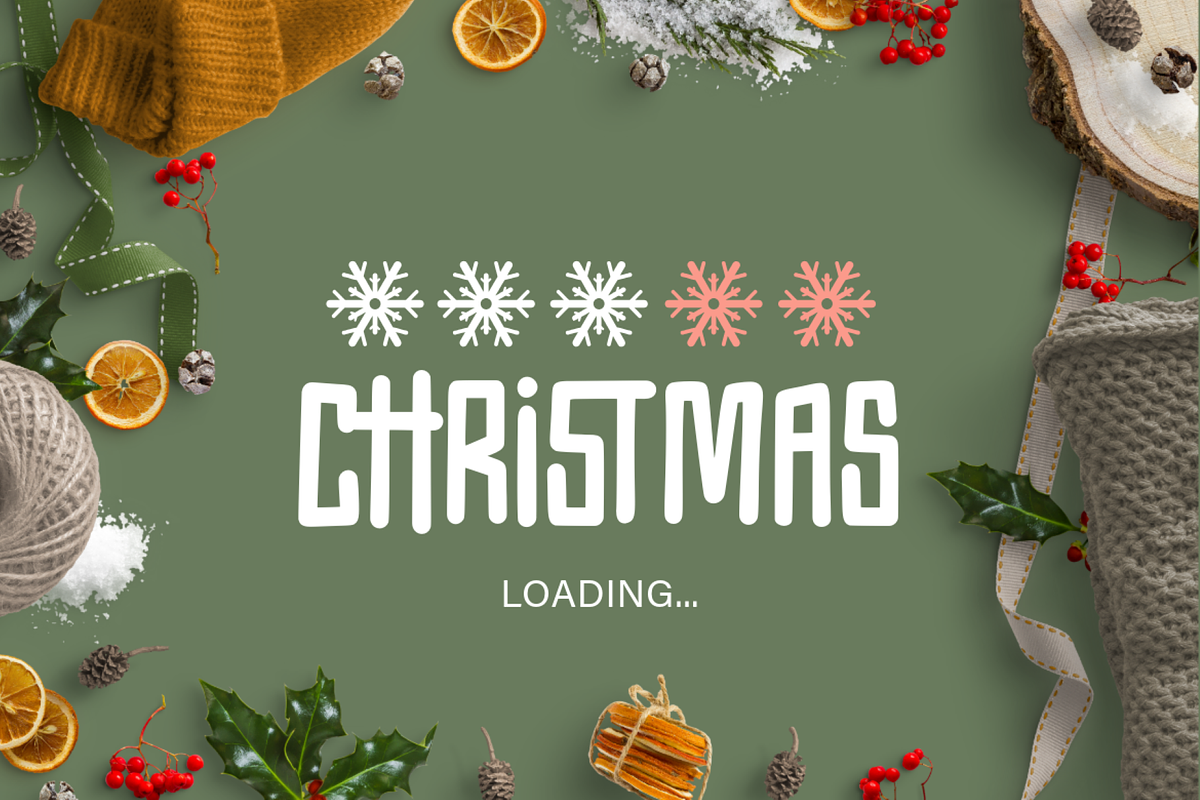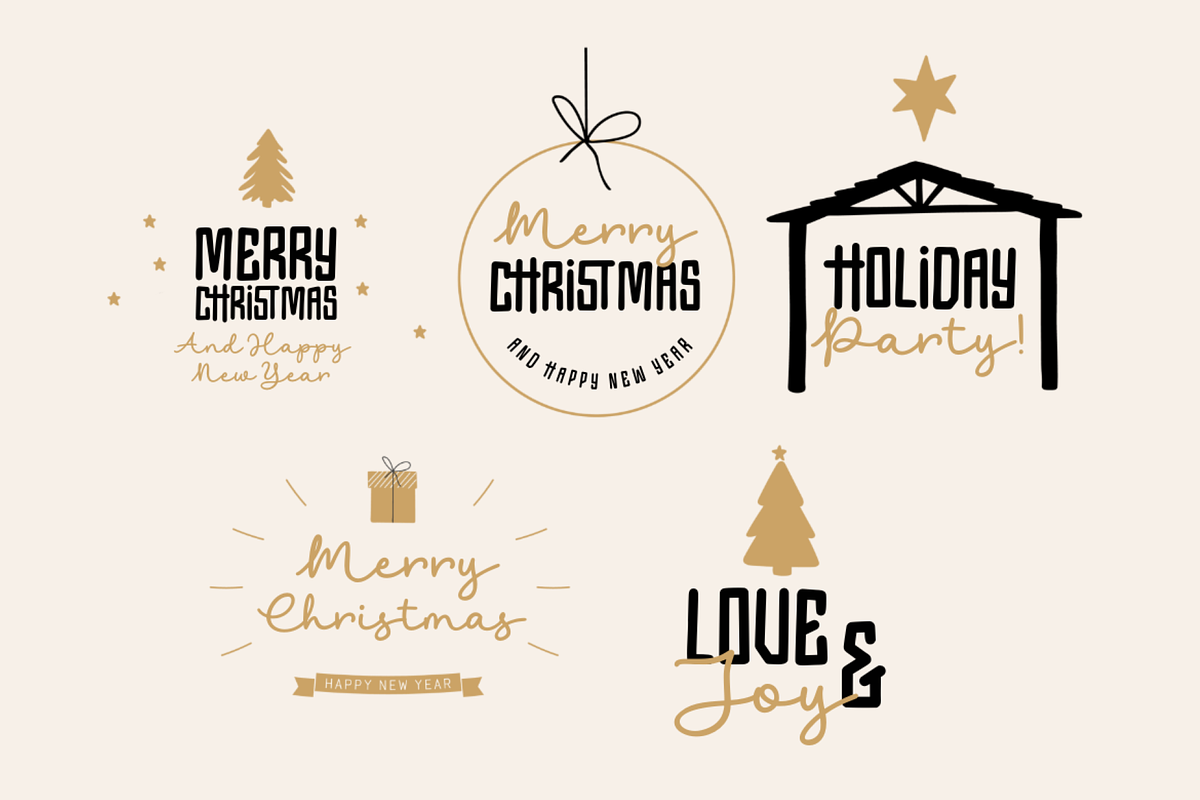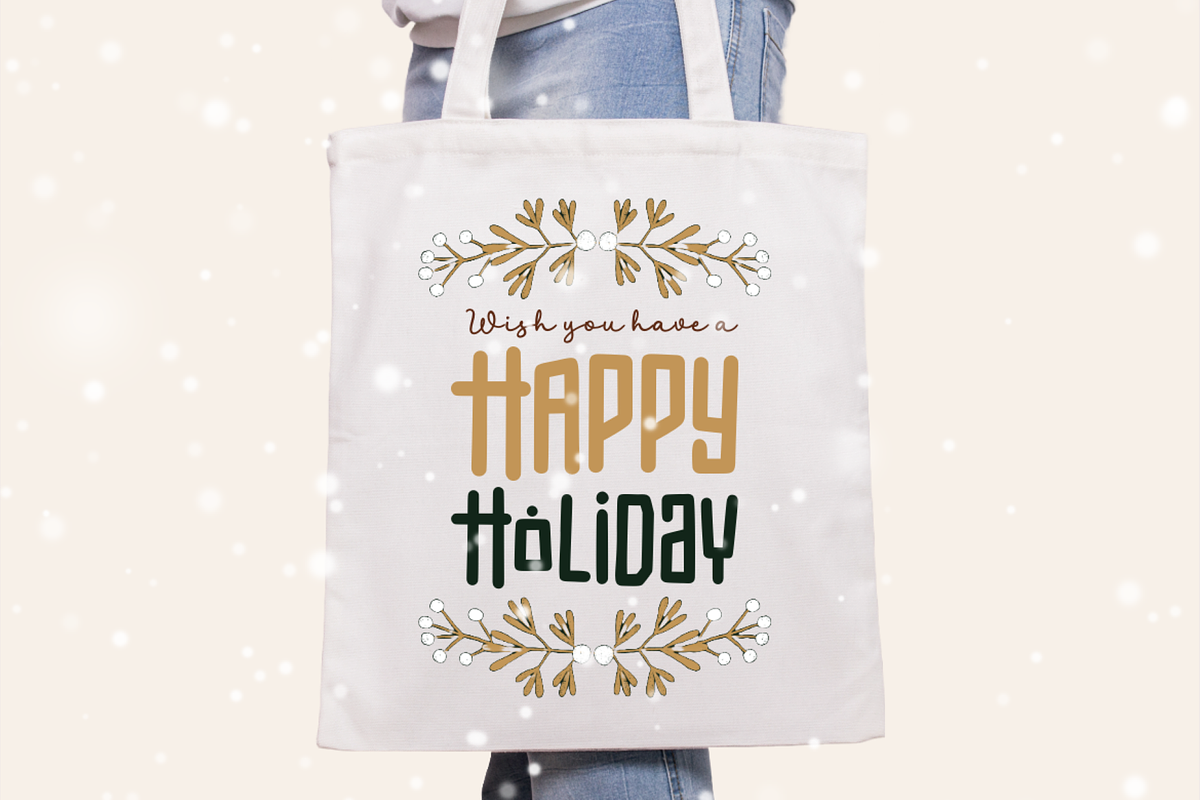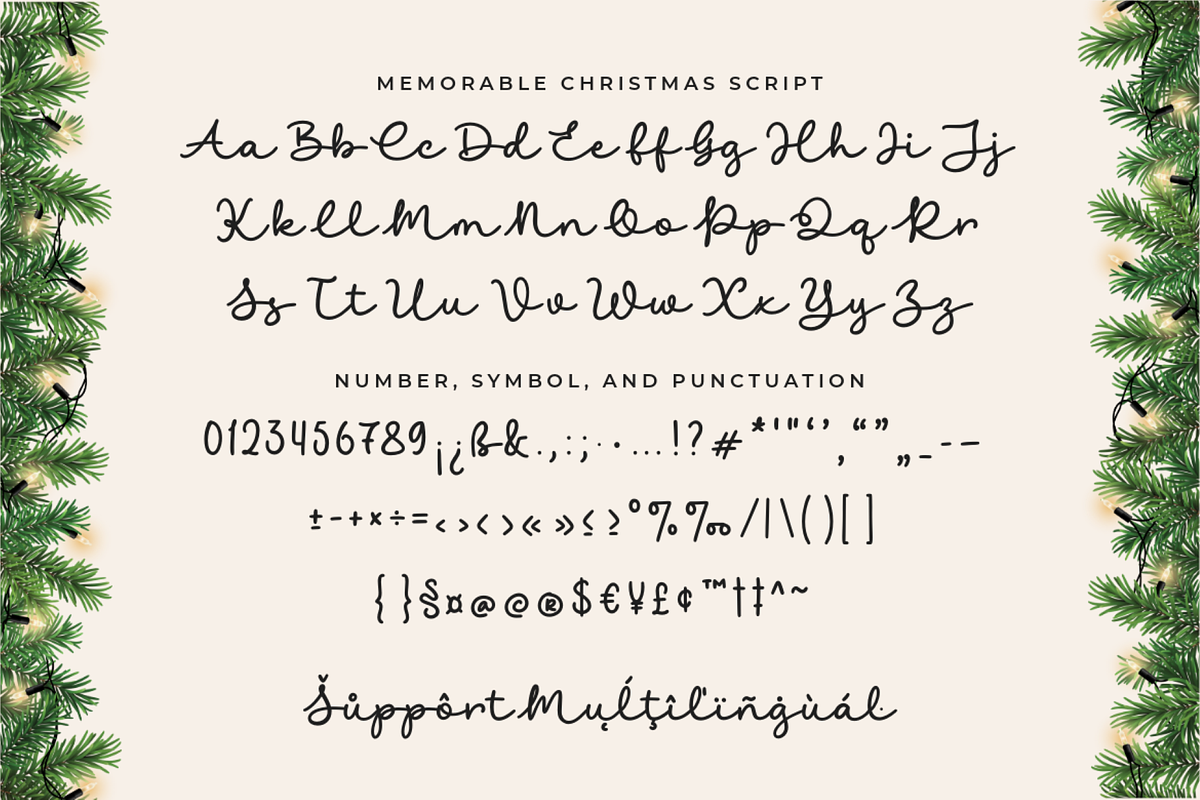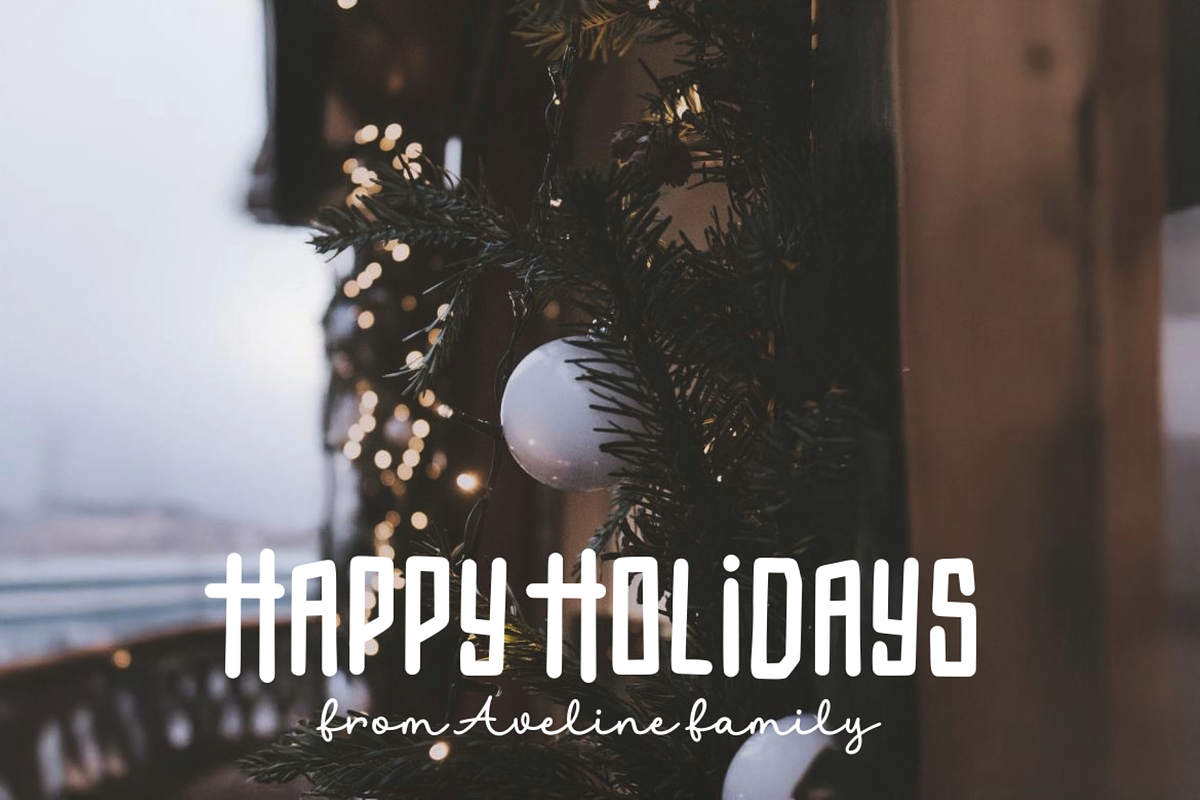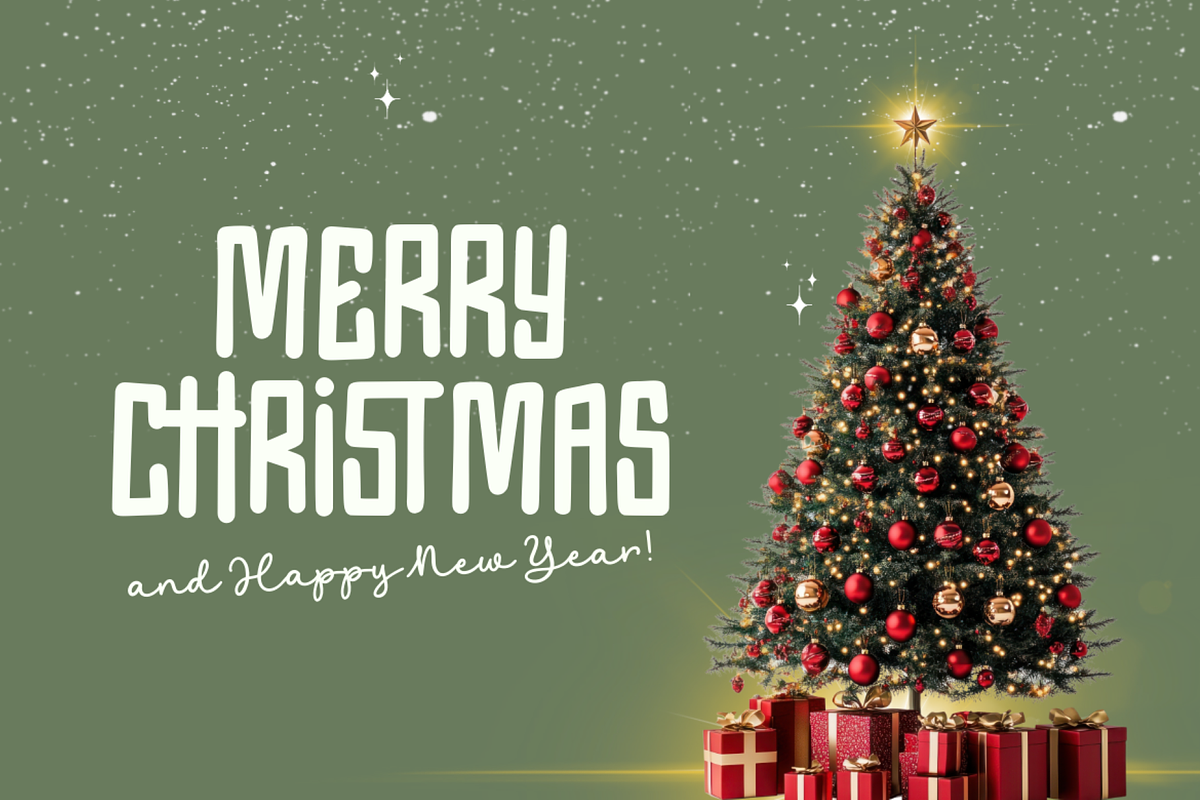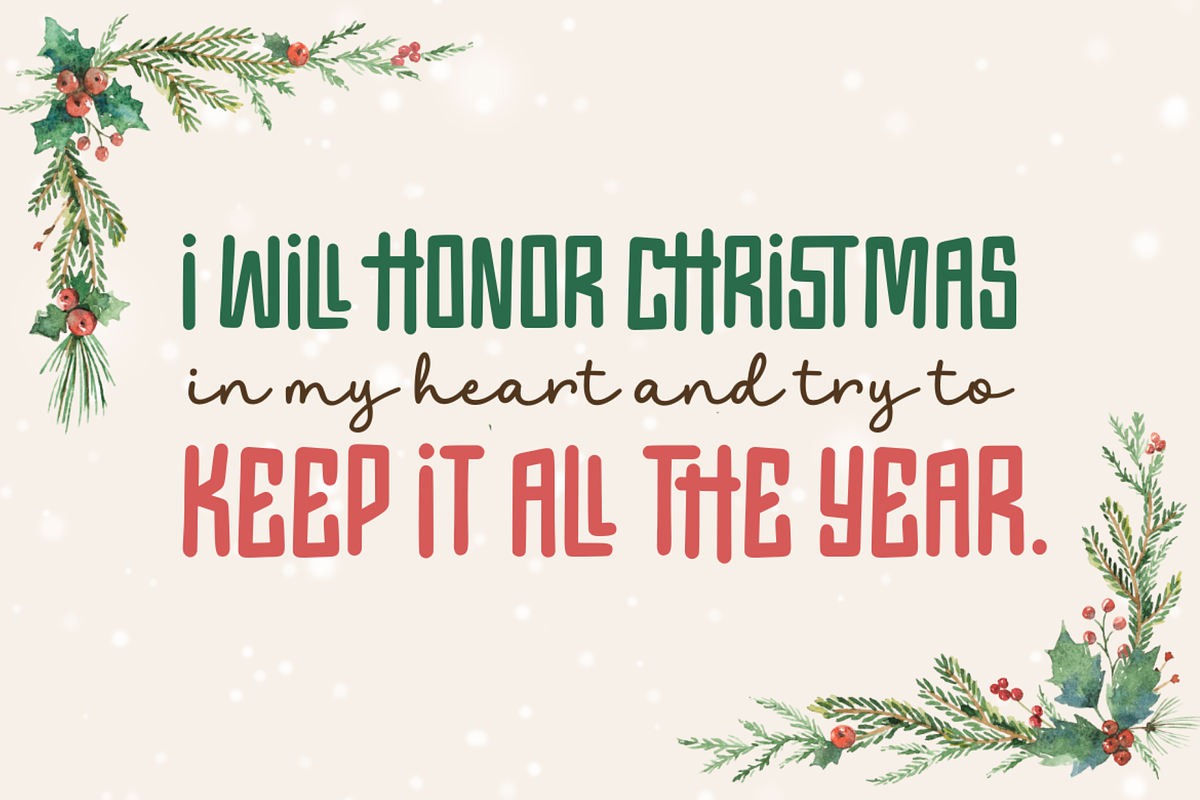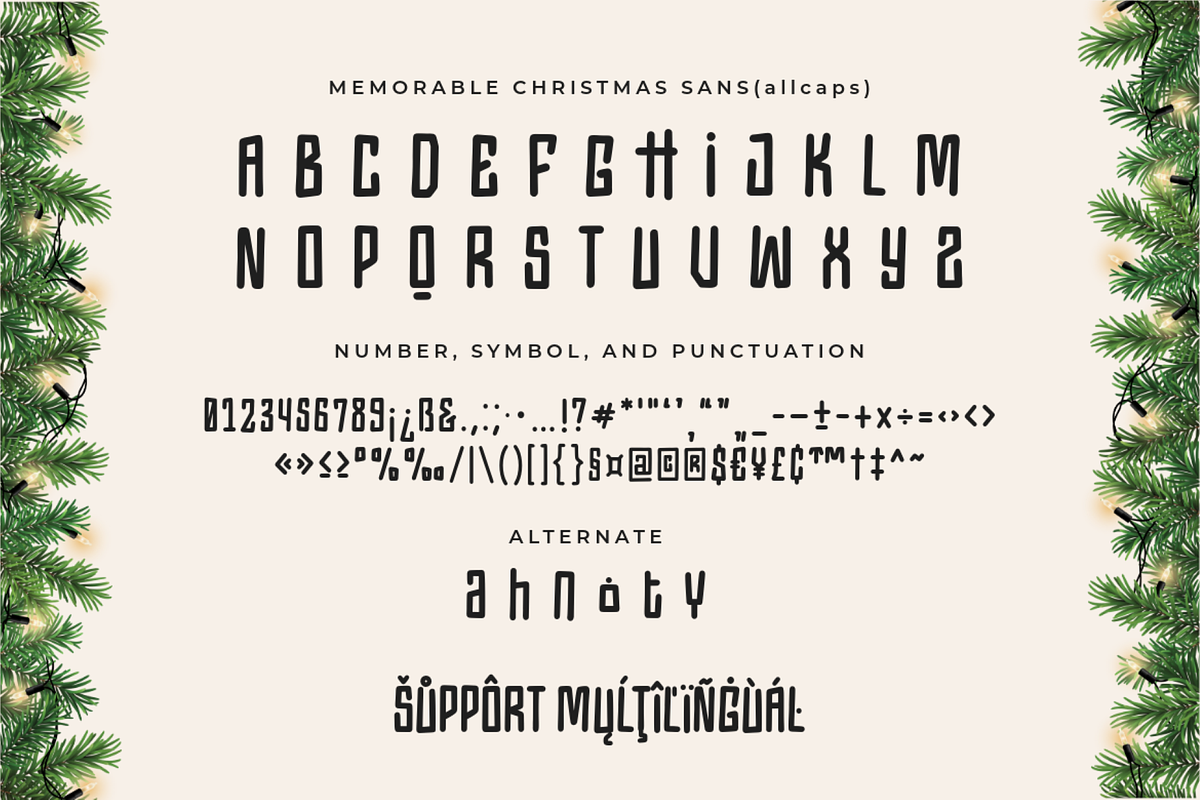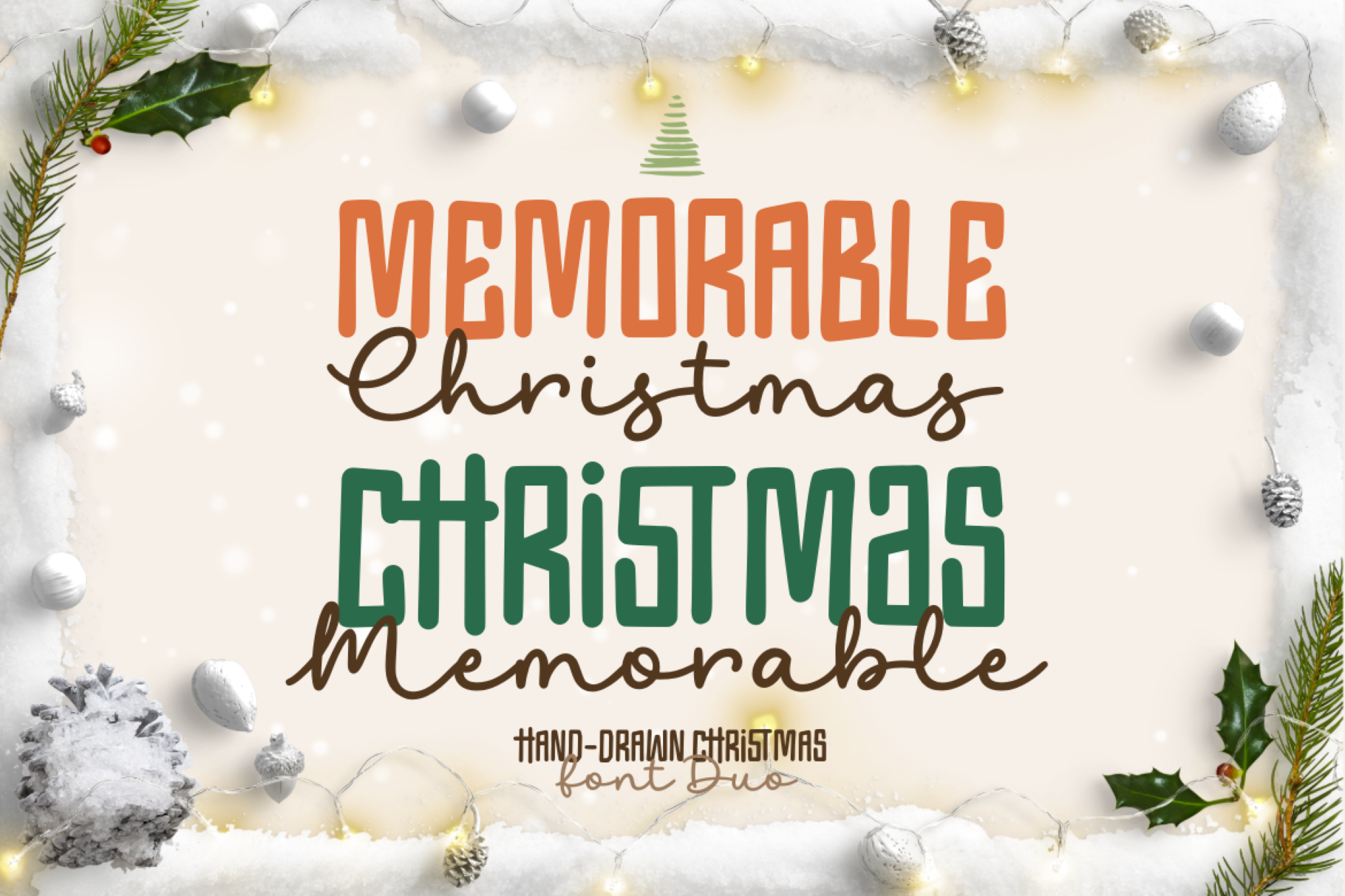
Memorable Christmas Font Duo
Introducing Memorable Christmas, a vibrant fusion of a robust retro-style uppercase and a fanciful script font playfully drawn with holiday spirit overflowing. Crafted especially to infuse joy into your Christmas-themed ventures, this delightful font duo brings a twinkle of festivity to Christmas cards, a pinch of magic to invites and a sparkle to your decorations. Perfectly encapsulating the merriment and charm of the season, Memorable Christmas is sure to make every design element feel like a celebration.
- A set of uppercase and lowercase glyphs
- Number, symbol, and punctuation